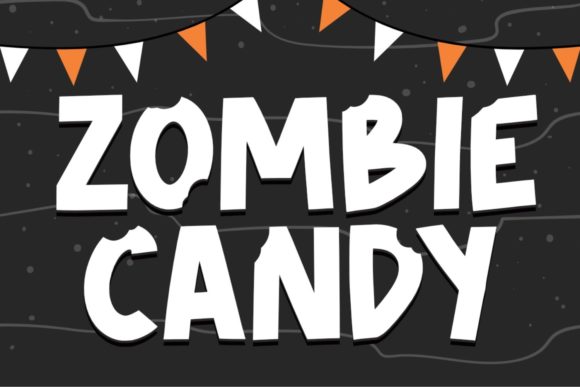
Dive into the enchanting world of Zombie Candy Font, a display font that exudes playfulness and authenticity like no other. Its chunky letters, bursting with character, are ready to ignite your designs with an explosive energy that will leave you spellbound.
Picture this: a Christmas letter adorned with the captivating curves of Zombie Candy Font. Its jolly nature leaps off the page, spreading warmth and cheer with every stroke. The font's playful spirit dances across the words, inviting your loved ones on an unforgettable holiday adventure.
Step into a realm where creativity knows no bounds. Zombie Candy Font is an artistic playground, where imaginations soar and ideas take shape seamlessly. Its bold and cheerful presence is a magnet for attention, drawing eyes to your designs and leaving a lasting impression that lingers long after the page is closed.
Beyond its aesthetic charm, Zombie Candy Font is a versatile performer, adapting effortlessly to a myriad of creative projects. Its playful energy shines in logos and branding, adding a touch of whimsy that resonates with audiences of all ages. Unleash its potential in posters and flyers, capturing attention with its bold and vibrant strokes that demand to be seen.
The possibilities with Zombie Candy Font are endless, like a box of colorful crayons waiting to paint the world with joy. Embark on a creative journey where your imagination takes center stage and your designs are transformed into captivating masterpieces. Embrace the magic of Zombie Candy Font and prepare to be amazed by its transformative power.